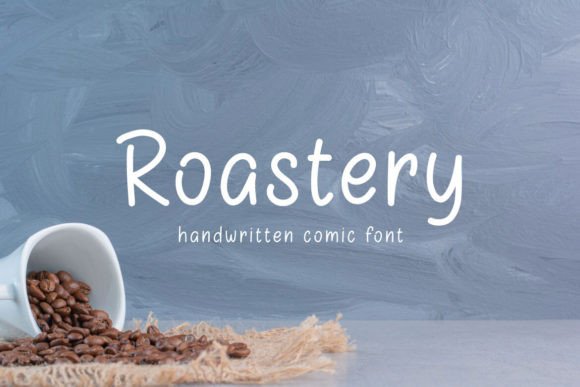
Introducing Roastery Font, the ultimate addition to your font collection! If you're on the lookout for captivating and versatile font styles for lettering, you've come to the right place. Created by the talented team at Mightyfire, this script font will ignite your creativity and leave a lasting impression on any project.
Roastery Font offers a delightful blend of elegance and playfulness. Its handwritten style brings a touch of whimsy to your designs, making it perfect for a wide range of applications. Whether you're designing comic books, posters, school materials, flyers, book titles, advertisements, social media content, logos, or anything else your heart desires, Roastery Font is here to make your vision come to life.
What sets Roastery Font apart is its ability to evoke emotions and captivate your audience. Its charming sans serif design adds a contemporary twist to traditional scripts, making it effortlessly eye-catching and unique. With Roastery Font, you can effortlessly convey warmth, friendliness, and approachability through your typography.
Imagine the impact Roastery Font will have on your social media posts. Your followers won't be able to resist double-tapping as they're drawn in by the font's irresistible charm. Your posters and flyers will stand out from the crowd, leaving a lasting impression on anyone who lays eyes on them. And your book titles and advertisements will become instant attention-grabbers, enticing readers and customers alike.
But it doesn't end there. Roastery Font is incredibly user-friendly and adaptable. Its wide range of ligatures, stylistic alternates, and swashes allows you to customize your text to perfection, ensuring that every word is a work of art. With this font, your creativity knows no bounds.